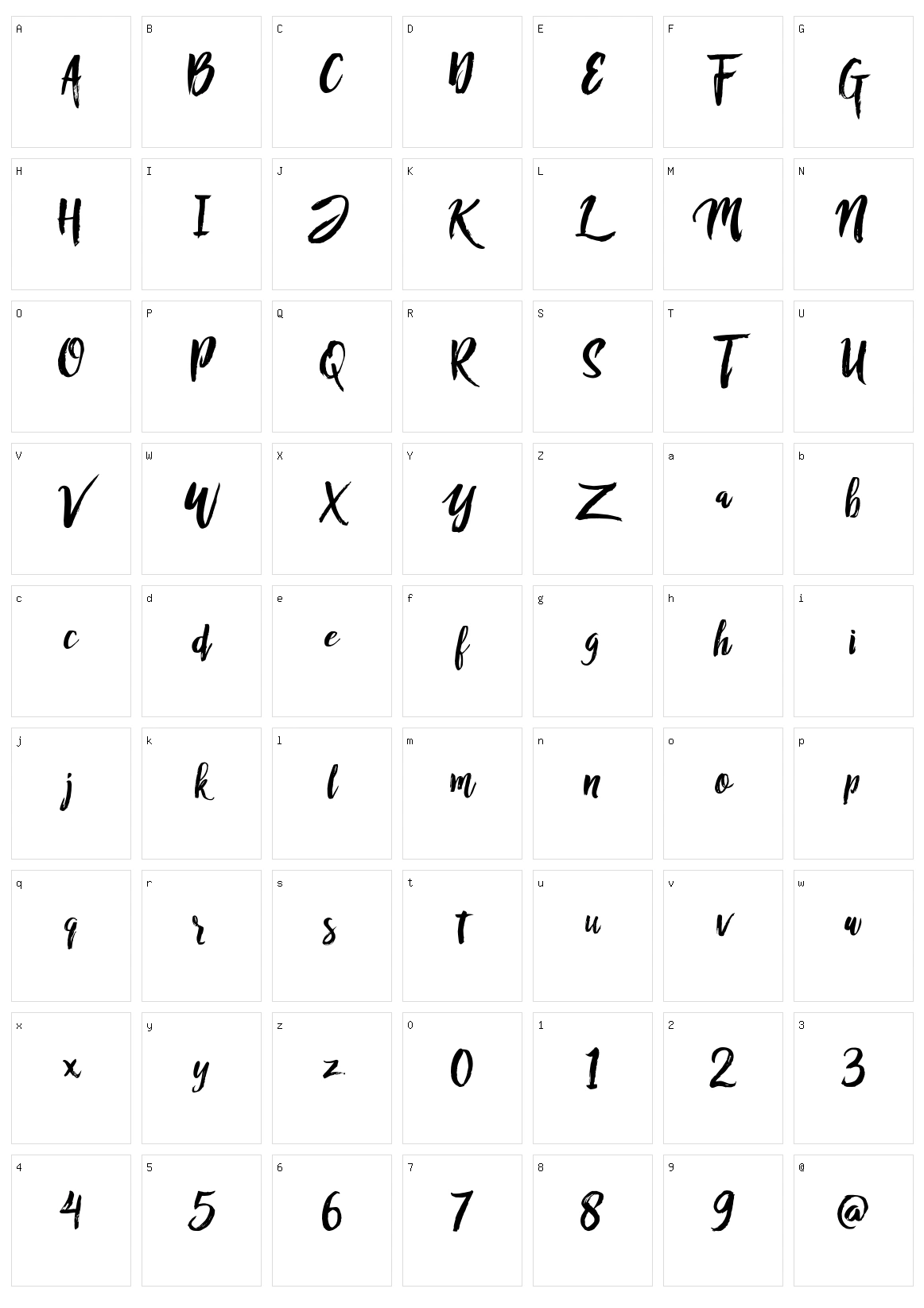
Introducing RofiTaste Hand brushed typeface , font is designed with a unique use of dry brush that creates the character of grunge brush. RofiTaste typeface excellent used for the manufacture quote text, logotype, header magazine, t-shirt design and concept handmade designs.
Character uppercase and lowercase
Numerals & Punctuations (OpenType Standard)
Accents (Multilingual characters)
Brush A-z 0-9 ( 62 glyphs )